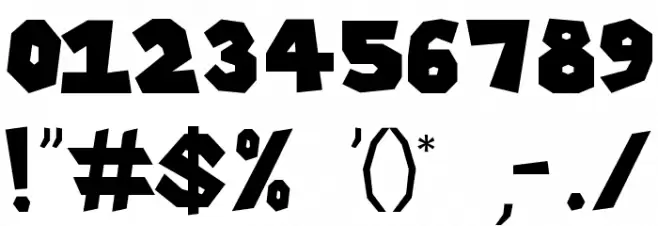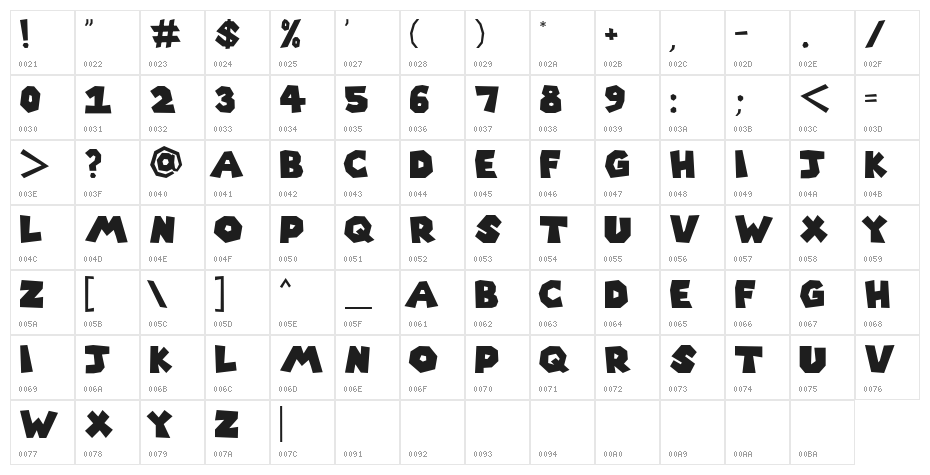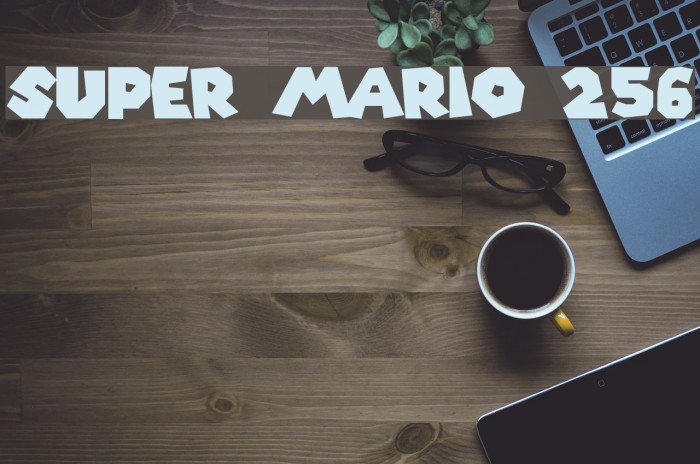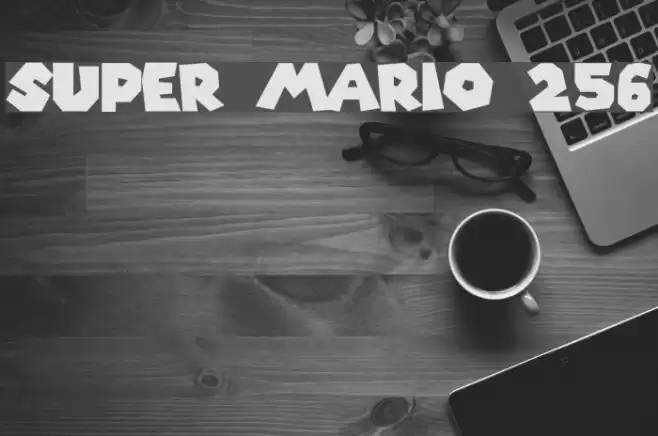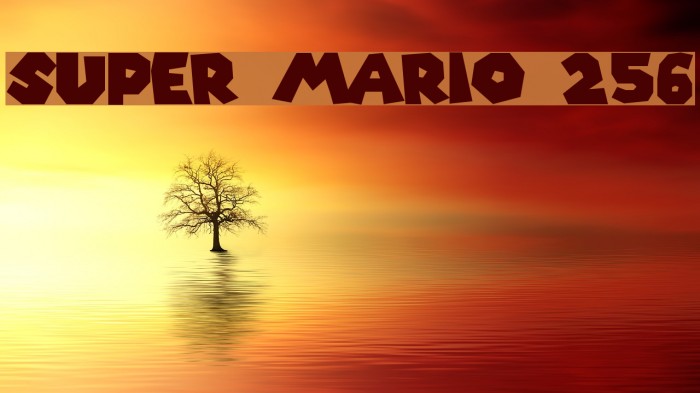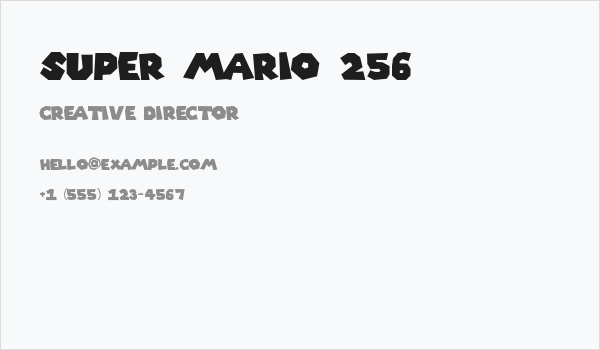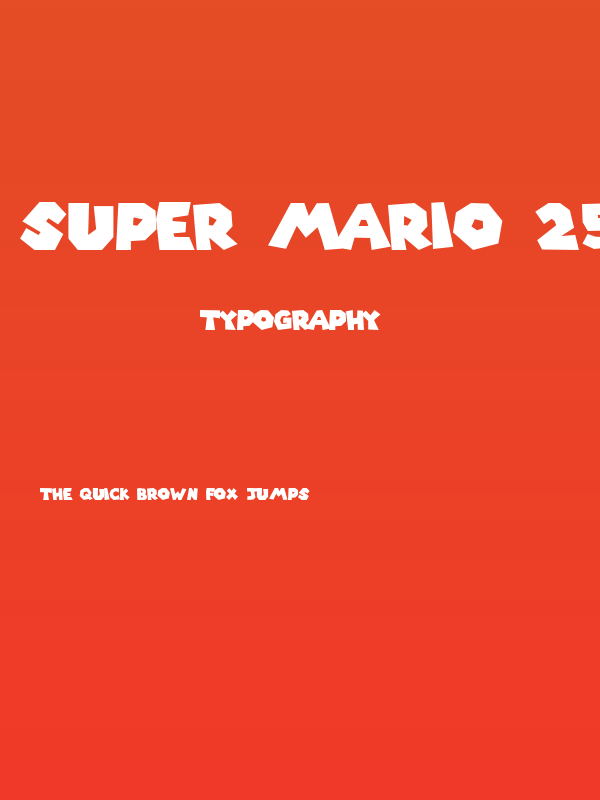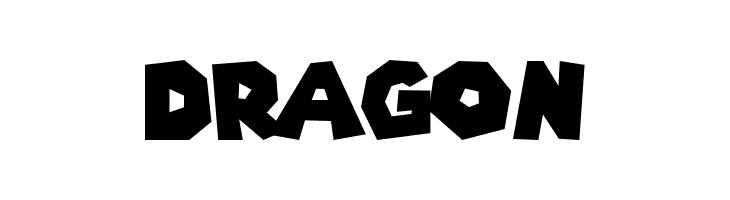
Super Mario 256 Font
Super Mario 256 Description
This font features a bold, playful design with a distinctly geometric and blocky appearance. The characters are crafted with sharp angles and a slightly irregular form, giving it a dynamic and energetic feel. The uppercase and lowercase letters maintain a consistent style, with the numbers and special characters following suit. The font's thick strokes and solid structure make it highly visible and impactful, ideal for grabbing attention. Its unique style is reminiscent of retro video game aesthetics, adding a nostalgic touch to any design project.
| Overall Style | Retro, Playful |
| Proposed Projects | This font is perfect for video game titles, posters, children's books, and any project requiring a fun and energetic vibe. |